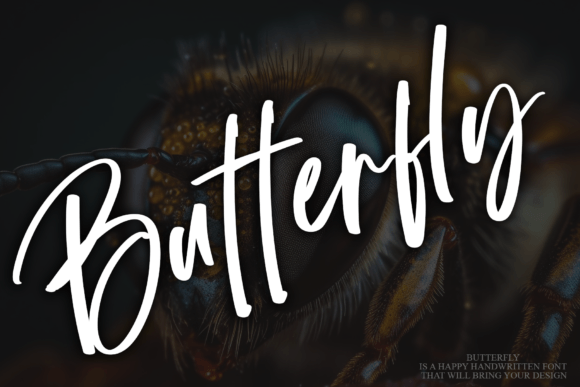
The Butterfly Effect: How a Fun Font Can Transform Your Designs
I still remember the time I was working on a children’s party invitation project, and I just couldn’t find the right font to match the playful theme. The client wanted something cheerful, fun, and engaging, but everything I tried seemed either too boring or too over-the-top. That’s when I stumbled upon the Butterfly font, and it was like a breath of fresh air! ✨
This handwriting font is perfect for adding a touch of whimsy to your designs, and I’m excited to share my experience with you. In this article, we’ll dive into the world of Butterfly font, exploring its features, how to use it, and some similar alternatives.
An Honest Review of Butterfly Font
• ✨ Fun and quirky: Butterfly font is perfect for designs that need a playful touch.
• ✅ PUA encoded: Easy access to amazing glyphs and ligatures.
• 🌈 Bright and cheerful: Ideal for children’s themed designs, especially when combined with bright colors.
While Butterfly font is amazing, there are a few things to keep in mind: 🤔
• ⚠️ Limited use cases: This font might not be the best fit for more formal or professional designs.
• ⚠️ Glyph overload: With so many glyphs and ligatures available, it can be overwhelming to navigate.
The Designer Inspiration Behind Butterfly Font
Butterfly font was created with the intention of capturing the carefree spirit of childhood. The designer wanted to create a font that would evoke feelings of joy, playfulness, and creativity. With its whimsical and quirky personality, Butterfly font is sure to bring a smile to your face and inspire your designs.
A: PUA (Private Use Area) encoding allows you to access a wide range of glyphs and ligatures, making it easier to create unique and creative designs.